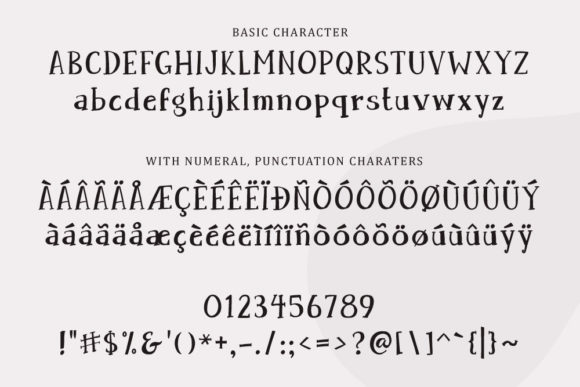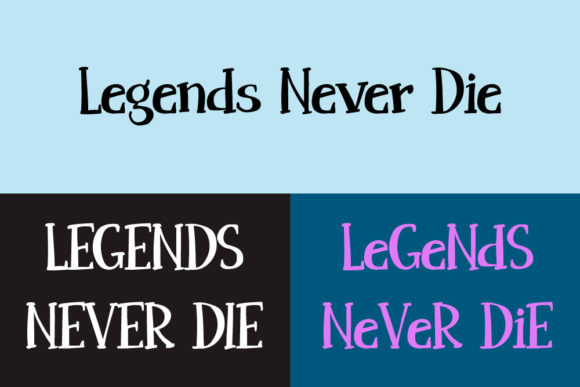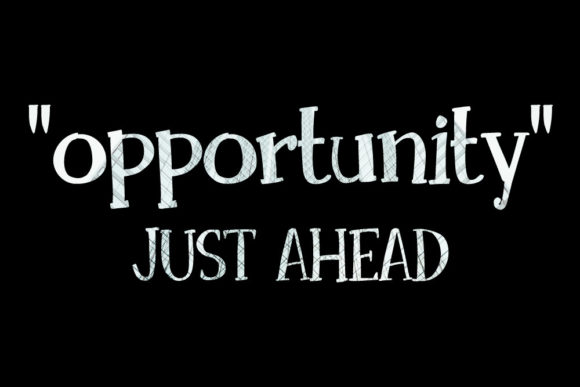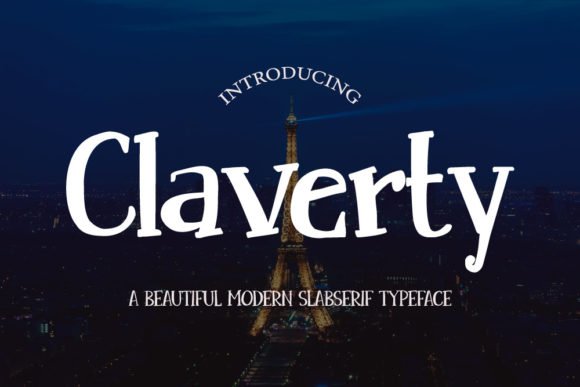
Introduction to Claverty Font
Claverty is a casual and fun serif font.
Its informal style and trendy vibe will make this font a go-to choice for each of the creations that require a relaxed touch .
Key Features of Claverty Font
Why Choose Claverty Font?